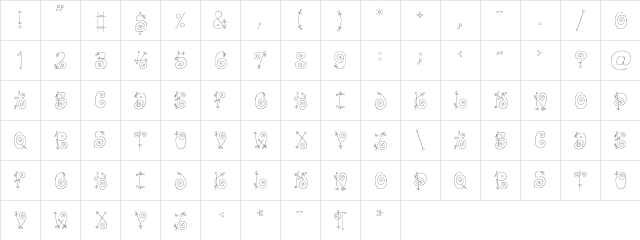
FunnyLight Regular
Design Context for FunnyLight Typeface
FunnyLight trades formality for fun, with bouncy, characterful letterforms that bring warmth and energy to any project.
Great for children's books, toy packaging, family event branding, and casual consumer-facing design.
Font Pairing: Pairs well with a rounded or humanist sans for body copy, maintaining the friendly tone without relying on FunnyLight to carry extended reading.
Pro Tip: Avoid using FunnyLight for long passages of text — it works best for headlines, labels, and short calls to action.